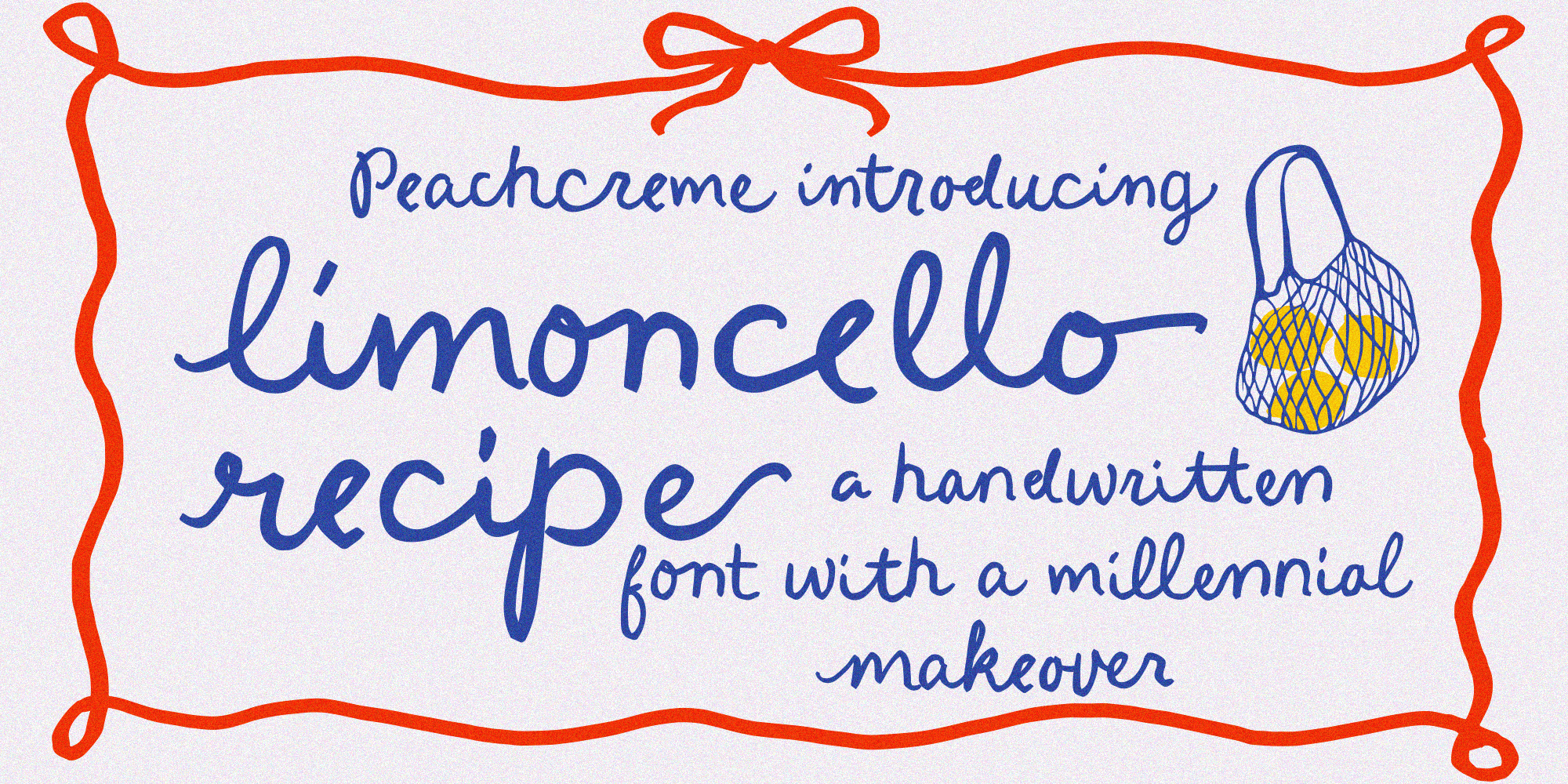
Limoncello Recipe Font is perfect for Italian recipe collections, Mediterranean cookbook layouts, artisanal liqueur labels, traditional family recipe cards, Italian restaurant menus, citrus grove marketing, summer cocktail guides, homemade preserve labels, Mediterranean cooking blogs, and authentic Italian heritage materials.
What makes Limoncello Recipe Font exciting is its zesty charm and authentic Italian warmth that captures the essence of traditional Mediterranean recipes with sun-soaked citrus joy and family heritage authenticity. This delightful typeface embodies the spirit of Italian culinary tradition with its organic character forms and recipe-inspired proportions that evoke handwritten family recipes, lemon groves in Sicily, and the cheerful hospitality of Italian kitchens filled with the aroma of fresh citrus. The font's culinary character creates an immediate appetite for authentic Italian flavors and traditional cooking.
Limoncello Recipe Font family includes regular weight with authentically crafted character designs featuring Mediterranean curves and recipe-inspired proportions. The typeface maintains excellent readability while showcasing its distinctive culinary personality through warmly designed letterforms that seem handwritten by Italian grandmothers sharing their most treasured family recipes with loving care.
Culinary professionals consistently choose Limoncello Recipe Font Free Download for projects requiring authentic Italian appeal and culinary credibility. This remarkable typeface brings the warmth of Italian kitchens to brand communications, combining Mediterranean aesthetics with family tradition to create appetizing culinary experiences. The authentically designed characters ensure delicious visual impact across all applications, making it essential for Italian restaurants, cookbook publishers, and any food organization seeking to communicate the authentic warmth and traditional heritage that comes from preserving cherished Italian culinary traditions through Limoncello Recipe Font Free Download.